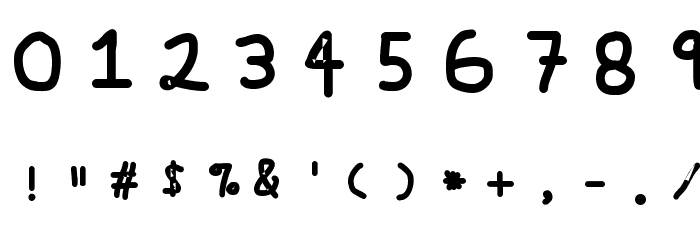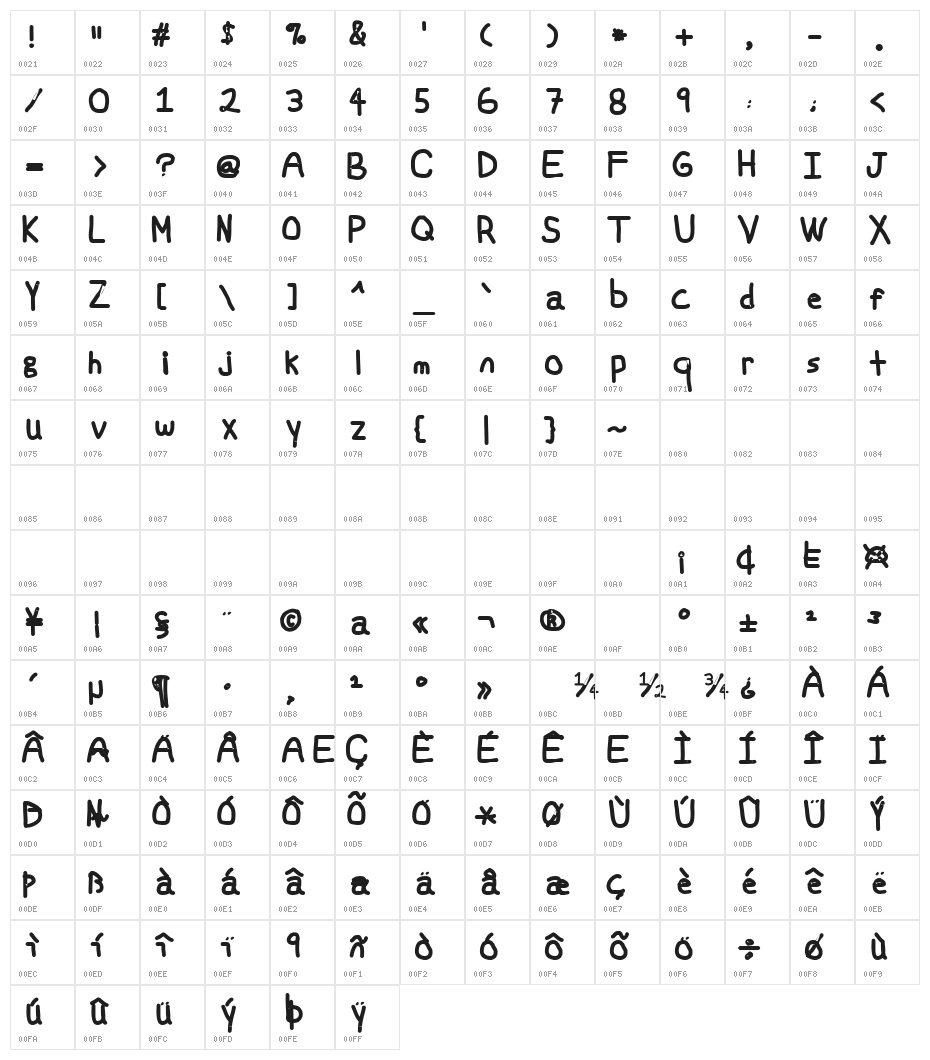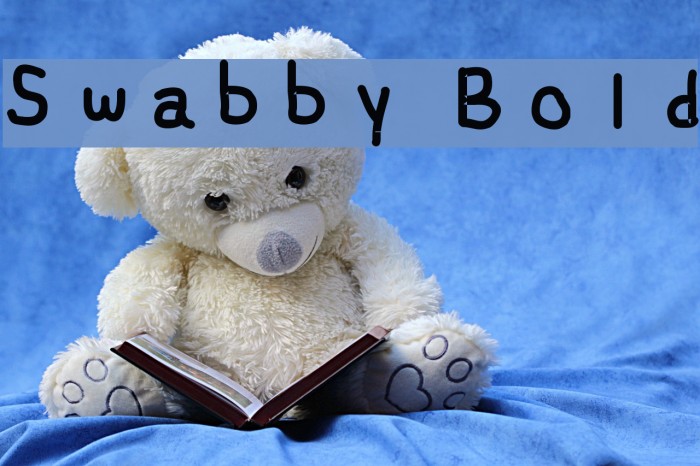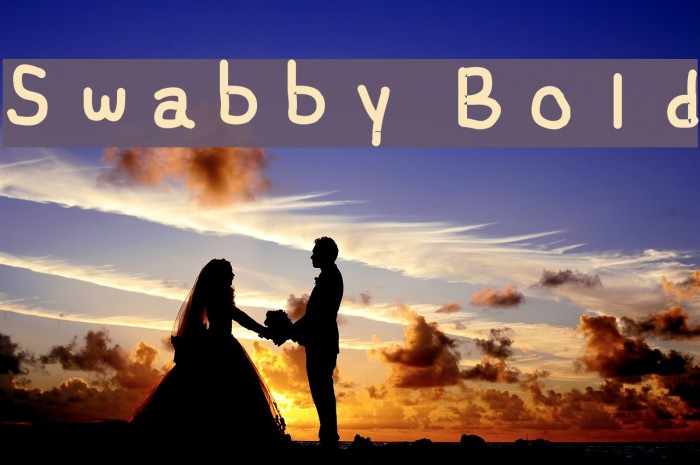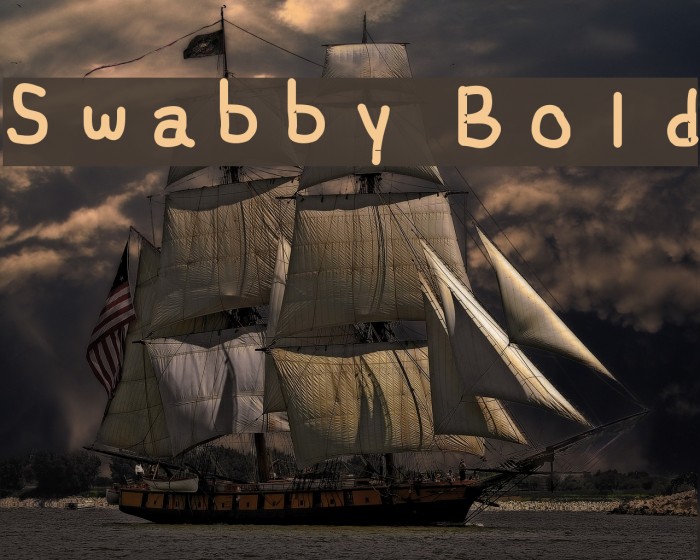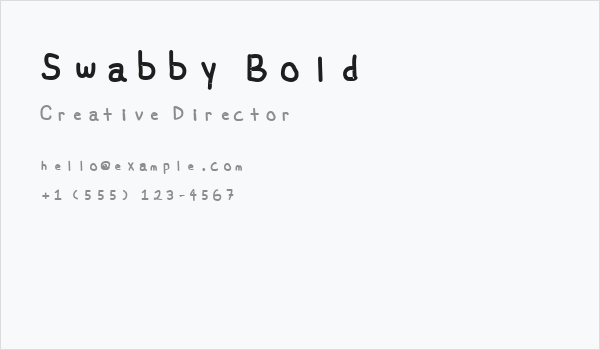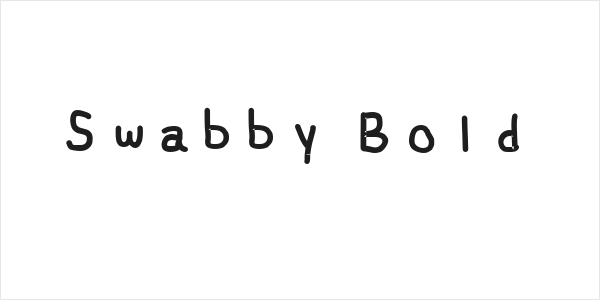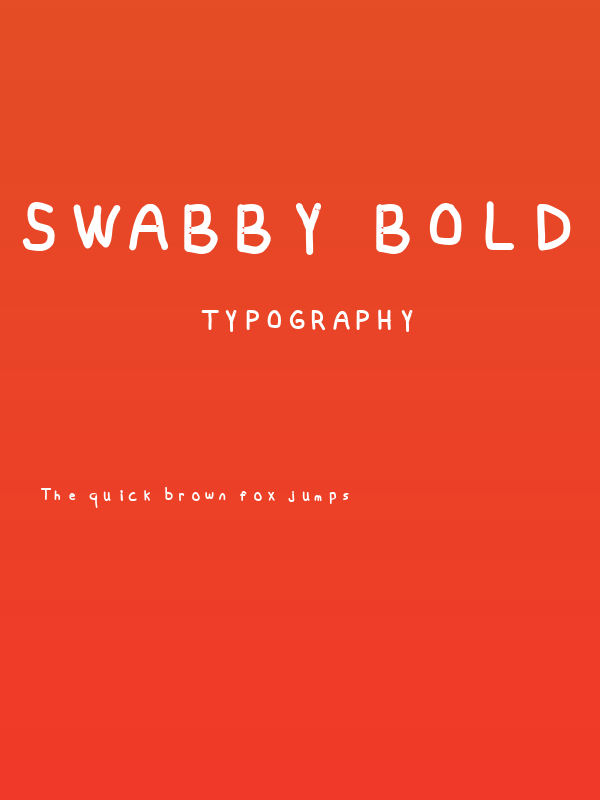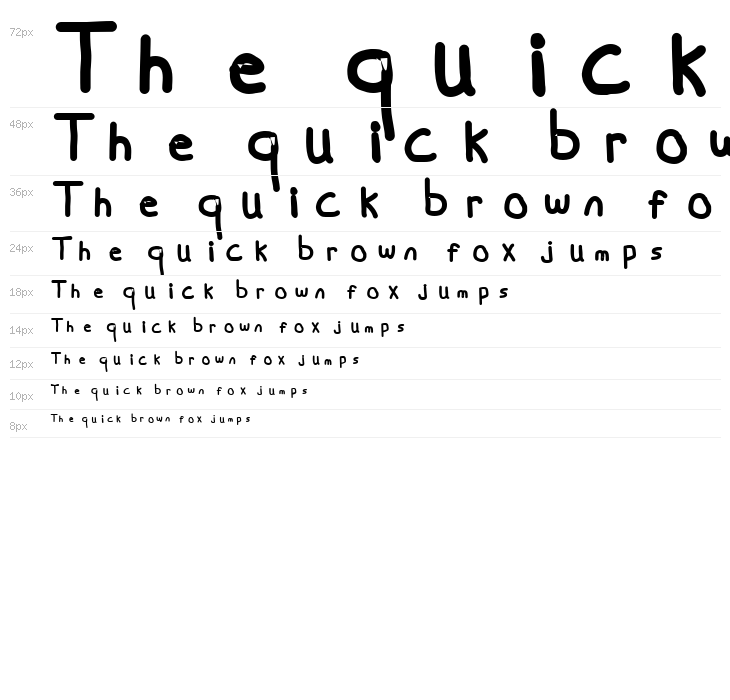
Swabby Bold Font
Swabby Bold Description
This font features a playful and informal style, characterized by its handwritten appearance. The letters have a casual, slightly uneven form, giving them a friendly and approachable look. The strokes are bold and consistent, with rounded edges that enhance its whimsical nature. The font maintains a uniform weight throughout, ensuring readability while adding a touch of personality. Its design is reminiscent of casual handwriting, making it suitable for projects that require a personal or informal touch. The characters are well-spaced, providing a balanced and open feel.
| Use Case | Headlines, Informal text, Branding |
| Proposed Projects | Ideal for greeting cards, children's books, casual branding, and social media graphics. |